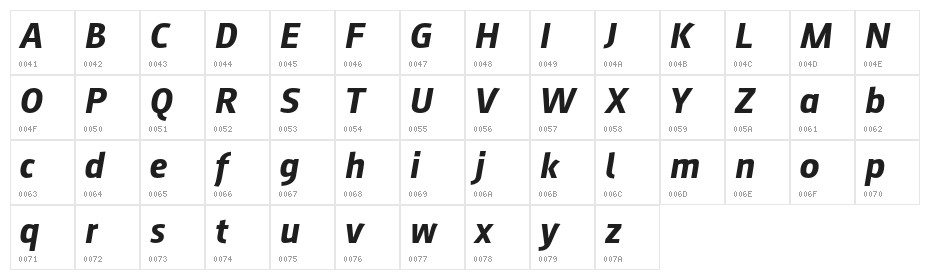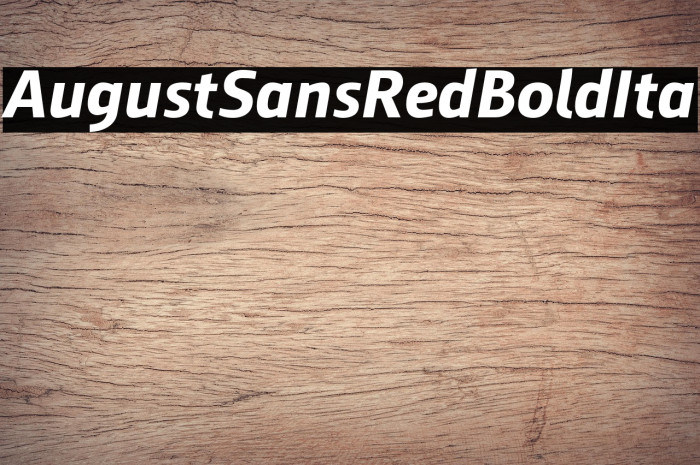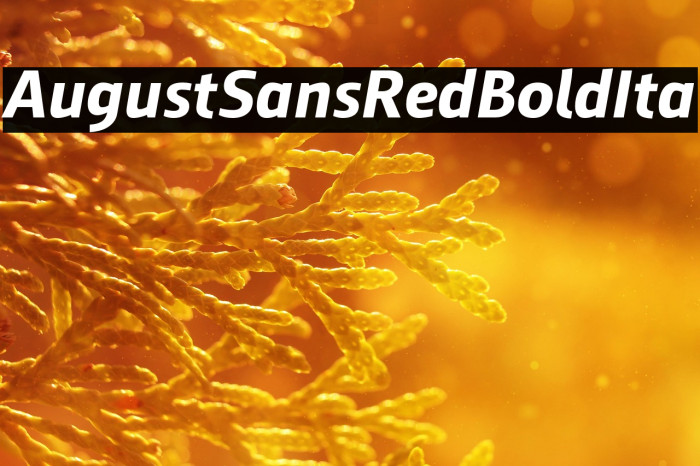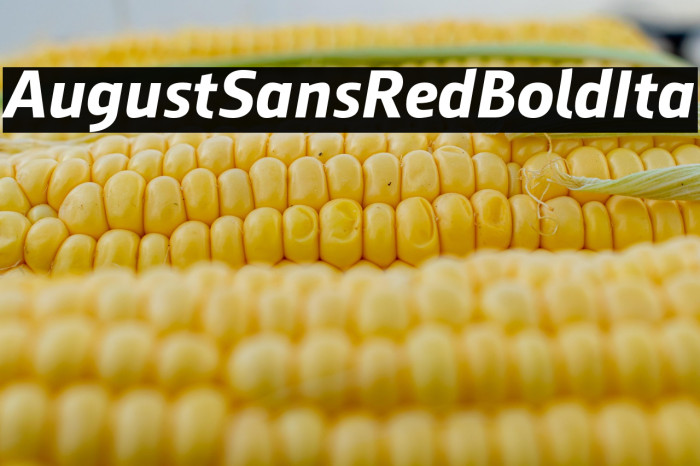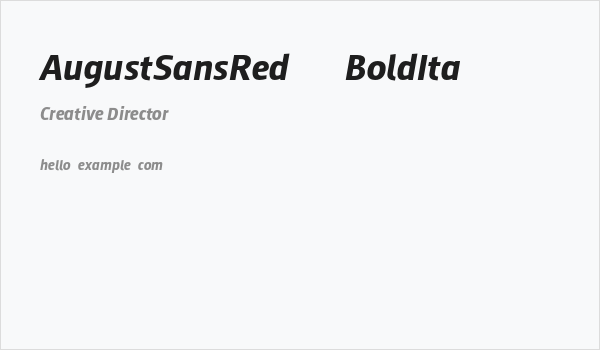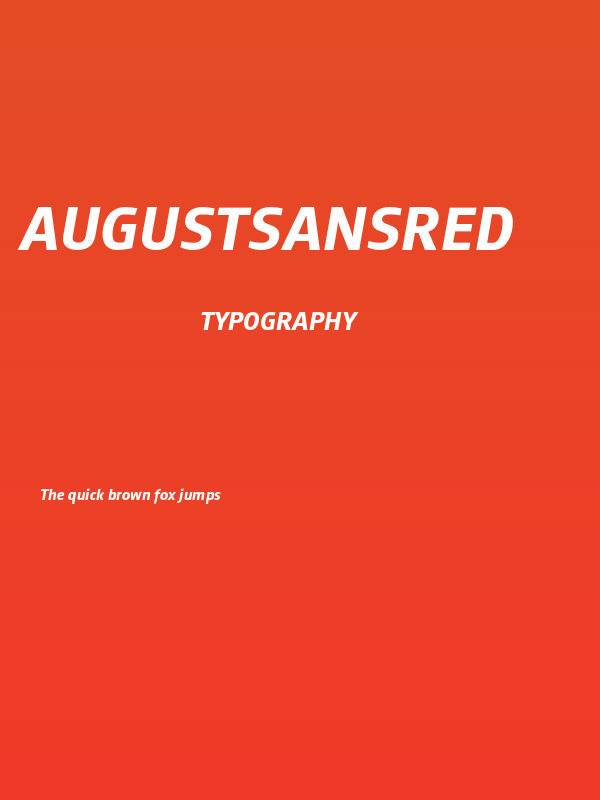
AugustSansRed-76BoldIta Font
AugustSansRed-76BoldIta Description
This font features a bold and italicized style, characterized by its clean and modern sans-serif design. The letters are slightly slanted, giving a dynamic and forward-moving appearance. The strokes are consistent in weight, providing a uniform look across all characters. The uppercase and lowercase letters maintain a harmonious balance, with rounded edges that soften the overall aesthetic. The numbers and special characters are designed to match the bold and italicized style, ensuring consistency throughout. This font is versatile and suitable for various design needs, offering a contemporary and professional look.